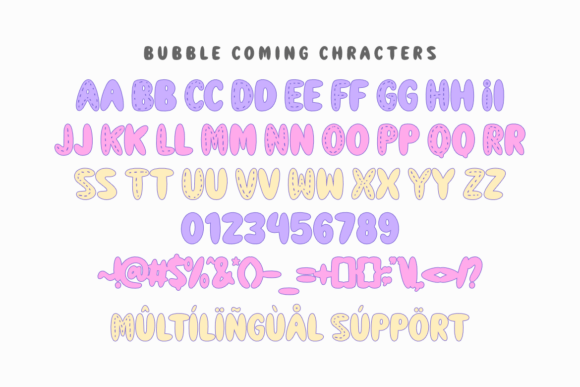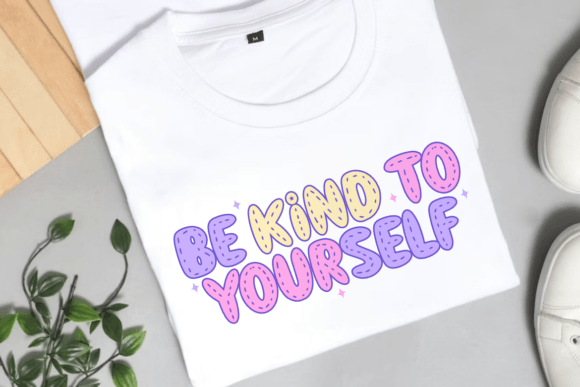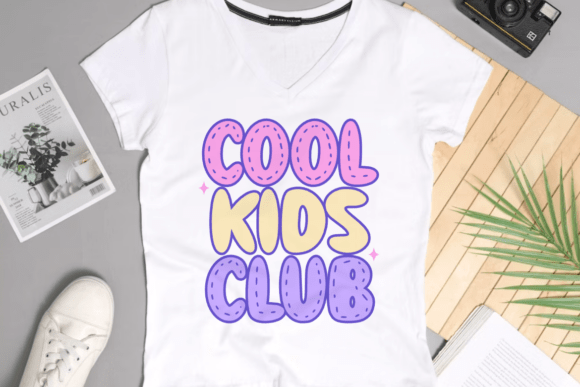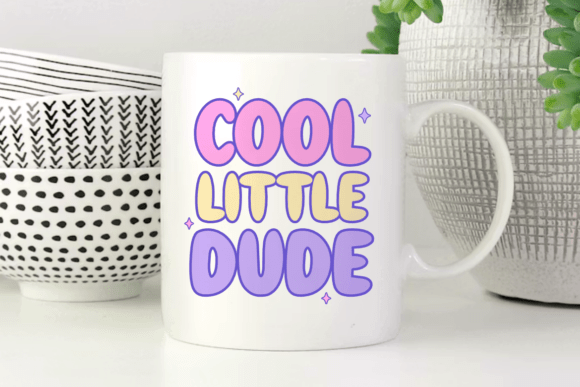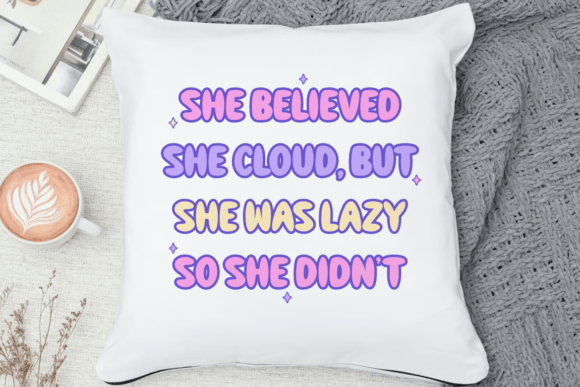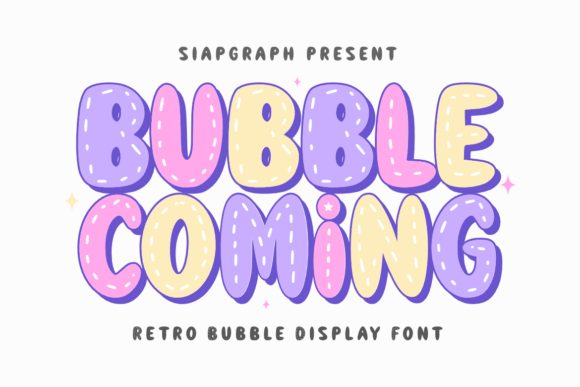
Bubble Coming Font: Add a Playful Touch to Your Designs
Are you looking for a font that can bring a touch of playfulness and whimsy to your designs? Look no further than Bubble Coming Font! This adorable and bubbly display font is perfect for creating eye-catching headlines, posters, social media graphics, and branding that stands out from the crowd.
The Characteristics of Bubble Coming Font
Bubble Coming Font is a unique and delightful font that exudes playfulness with its soft curves and bold appearance. Its bubbly and rounded shapes give it a friendly and approachable feel, making it perfect for designs that require a touch of whimsy and fun. The font’s clean and simple design ensures that it remains legible and easy to read, even at larger sizes.
Bubble Coming Font is a versatile font that is perfect for designers and crafters who want to add a dreamy touch to their designs. Whether you’re creating:
- Eye-catching headlines and titles
- Playful posters and flyers
- Engaging social media graphics
- Branding and packaging designs
- DIY crafts and projects
This font is sure to bring your ideas to life with its unique and playful style.
Key Features of Bubble Coming Font
Here are some of the key features that make Bubble Coming Font a must-have for designers and crafters:
- Adorable and bubbly design: The font’s soft curves and bold appearance give it a playful and whimsical feel.
- Clean and simple design: The font’s clean and simple design ensures that it remains legible and easy to read.
- Versatile and flexible: The font can be used for a wide range of designs, from headlines and posters to social media graphics and branding.
In conclusion, Bubble Coming Font is a unique and playful font that is perfect for designers and crafters who want to add a touch of whimsy and fun to their designs. With its soft curves, bold appearance, and versatile design, this font is sure to bring your ideas to life. Whether you’re creating headlines, posters, social media graphics, or branding, Bubble Coming Font is a must-have font that is sure to delight.